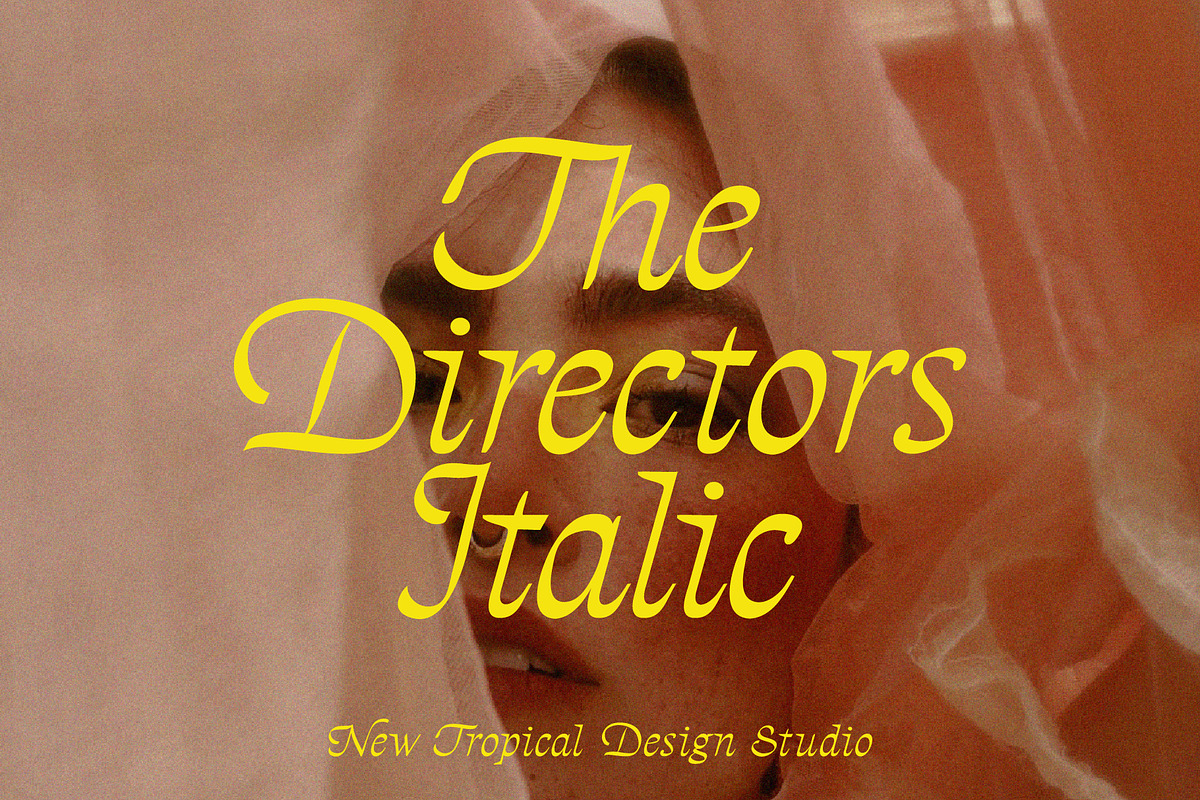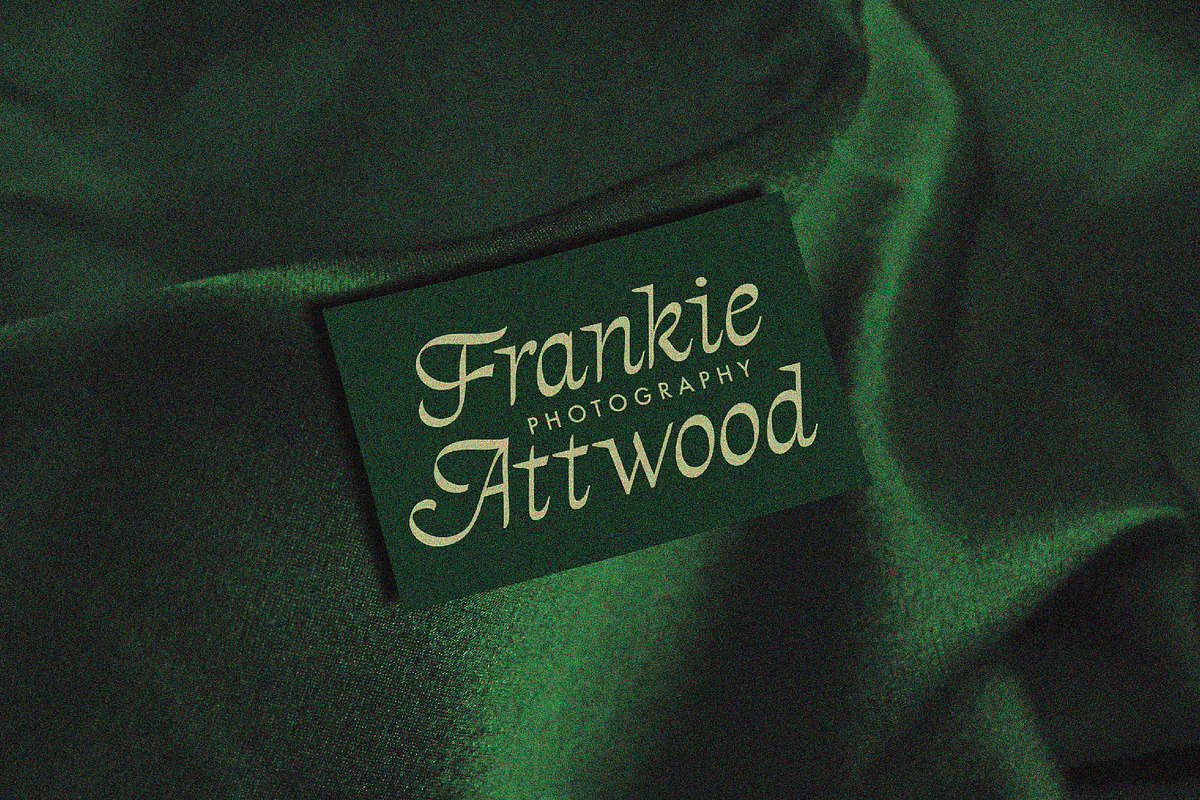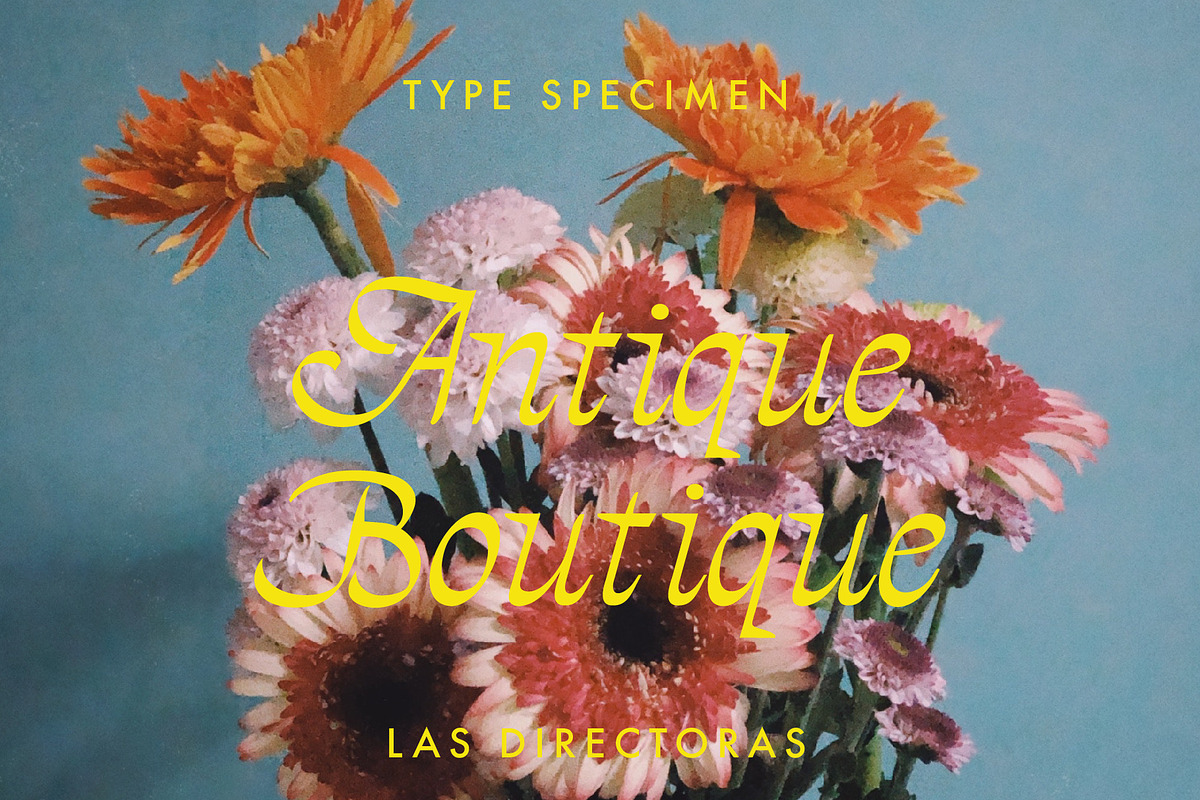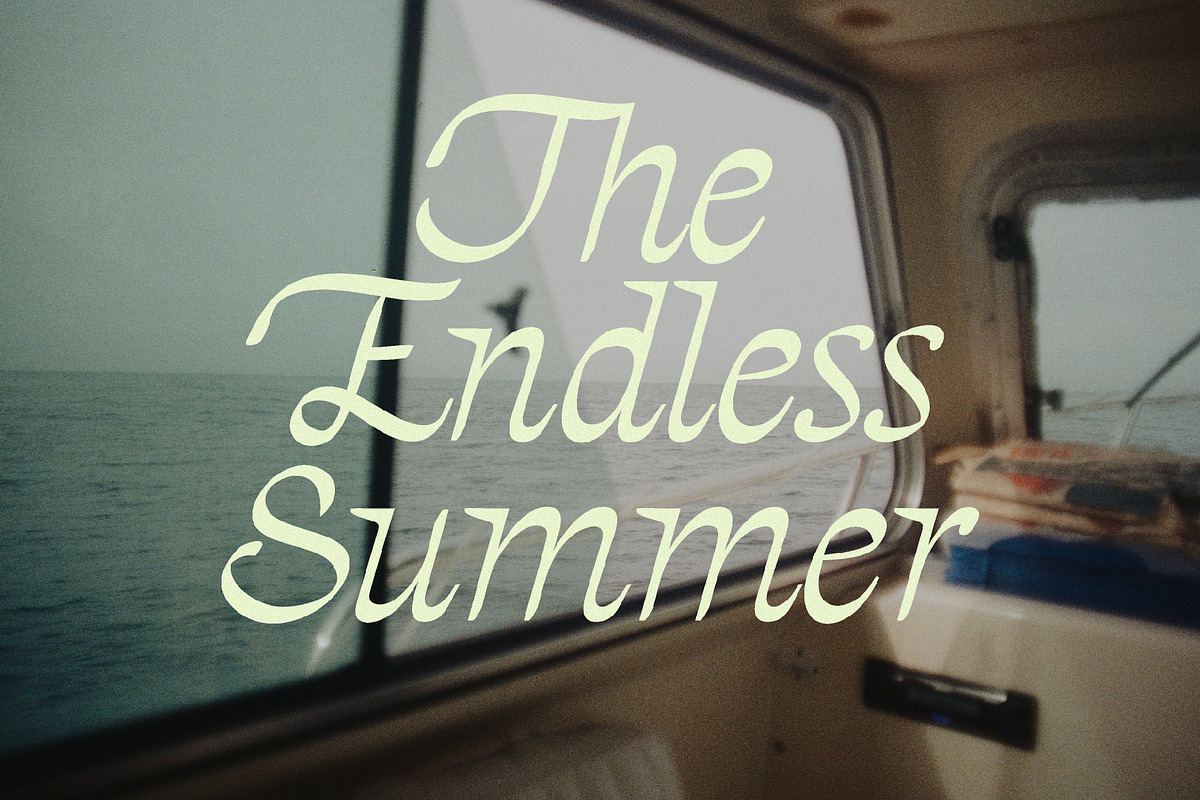
The Directors Italic Typeface
The Directors is a nostalgic typeface inspired by Wes Anderson film typography. It's an ornate italic that vibes with analogue photography and pastel colour palettes. A unique mix of retro 60s-70s curves and older style calligraphy creates a memorable typeface with a romantic flair .Pair this font with Futura for maximum Wes Anderson effect!